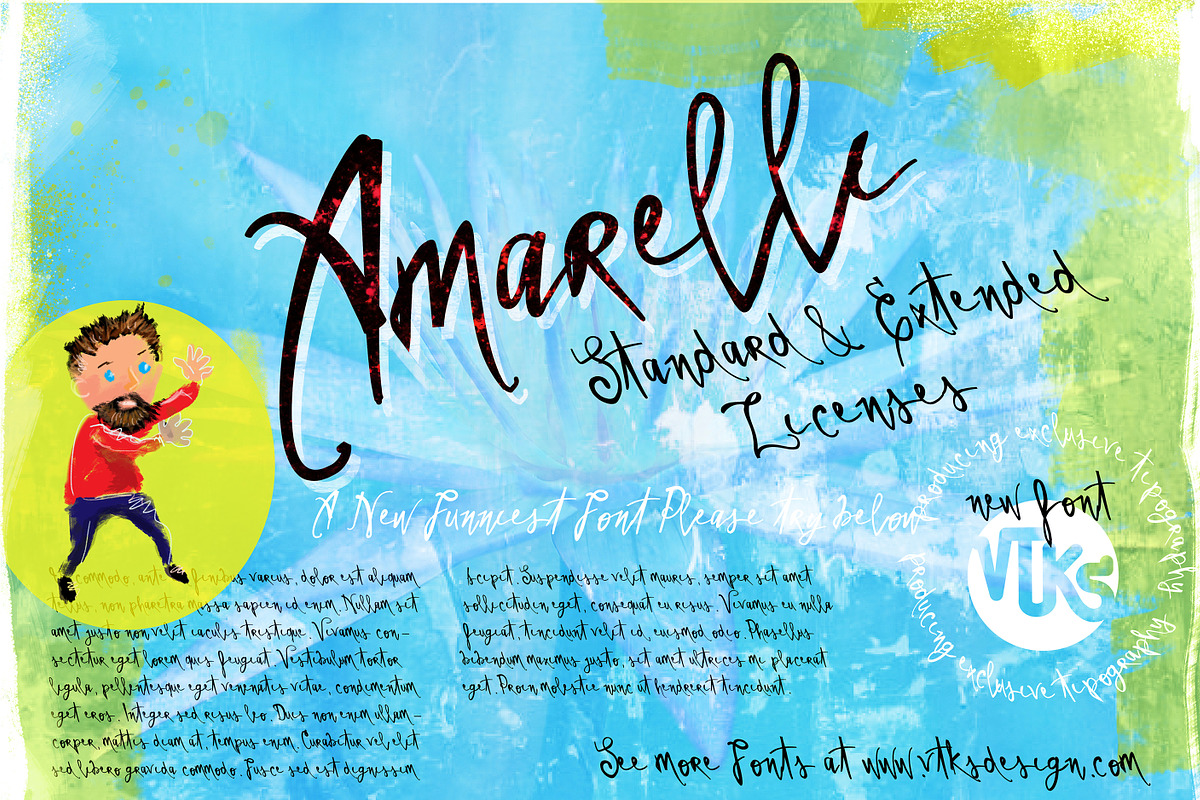
Amarelli Font
Amarelli Font by vtks design is a font selected for branding, posters, packaging, typography.
Why Amarelli Font is worth a look
Amarelli Font by vtks design fits naturally into Branding, posters, packaging, typography.